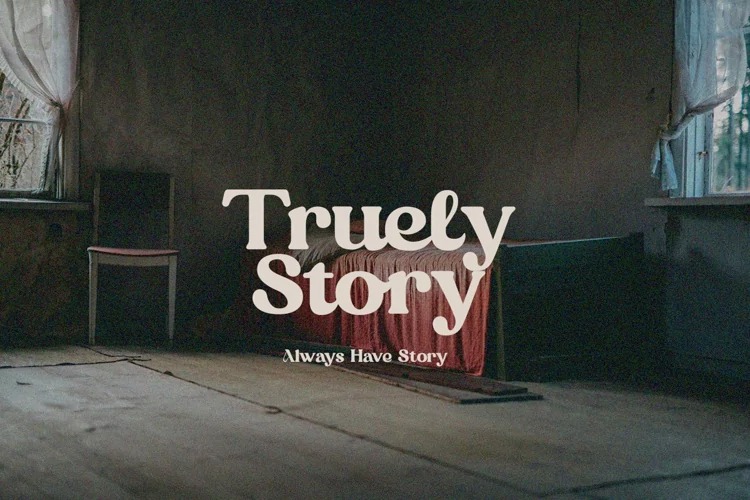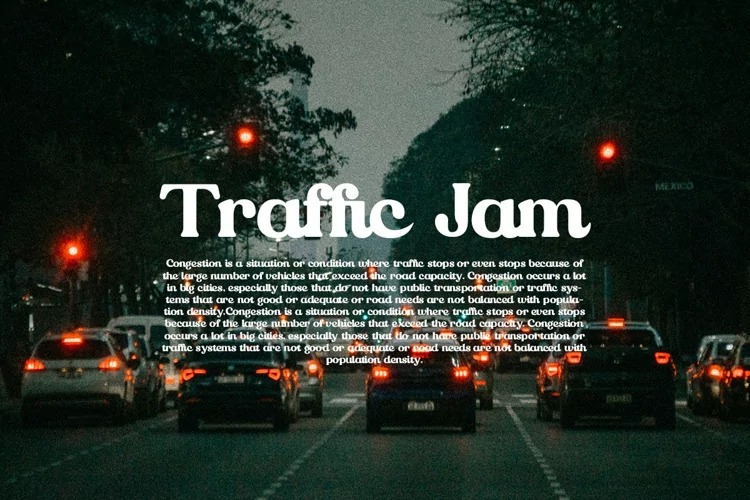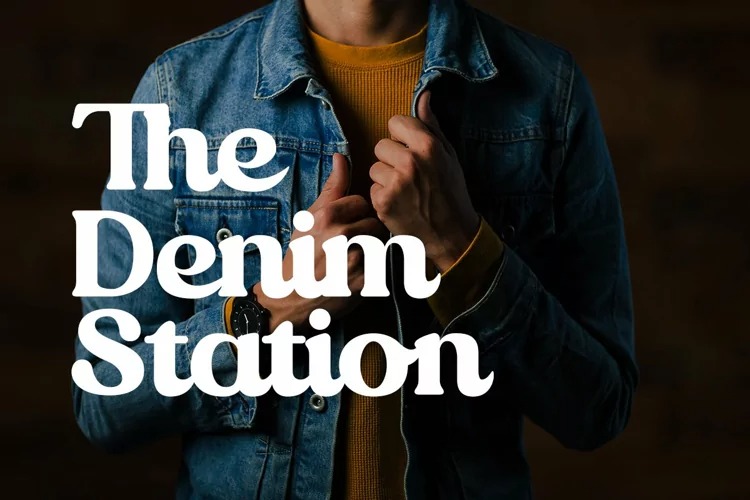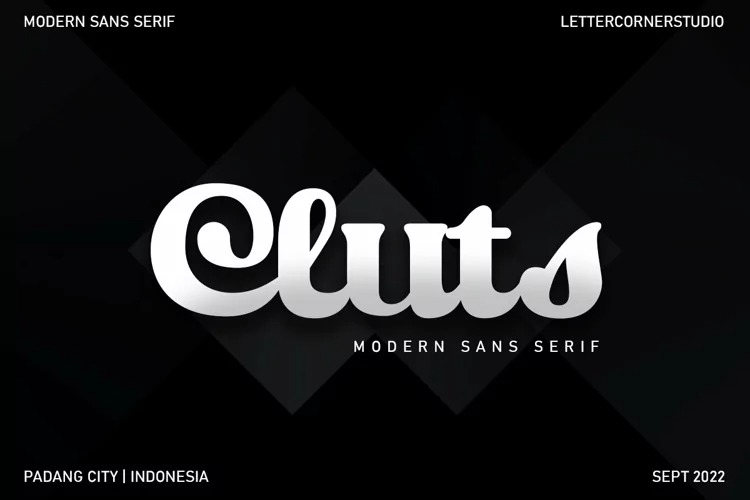
Cluts Display Font is a modern serif typeface created by Mevricks Studio with a unique and classy style. This font has a graceful and unique alternates style, which is perfect for your classy projects. Cluts are best used as a display for headings, logos, branding, magazines, product packaging and invitations.